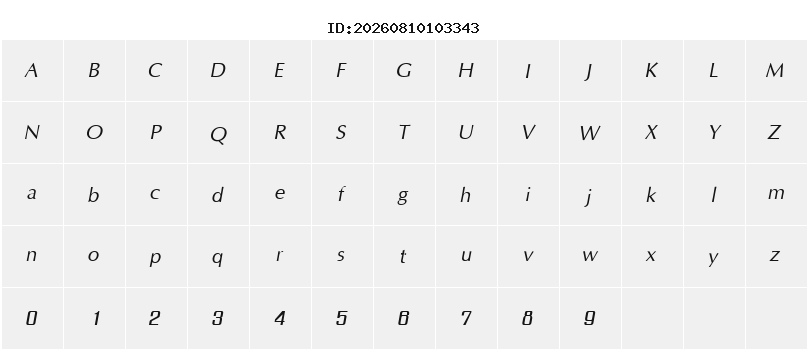
About P5 IrisUPC.ttf
P5 IrisUPC.ttf is a modern, elegant sans-serif font designed for ultimate readability and visual harmony. Perfect for branding, headlines, web design, and print materials.